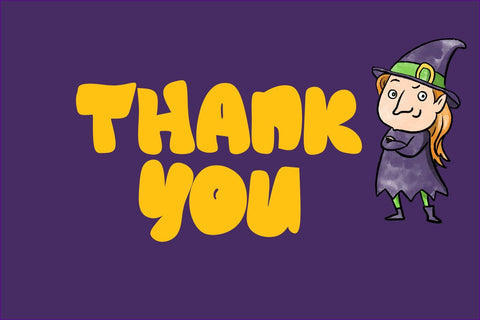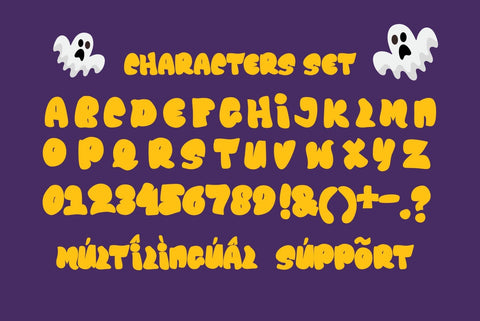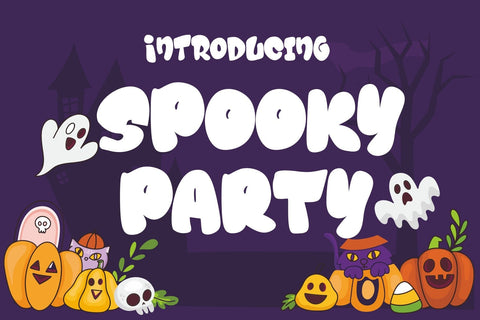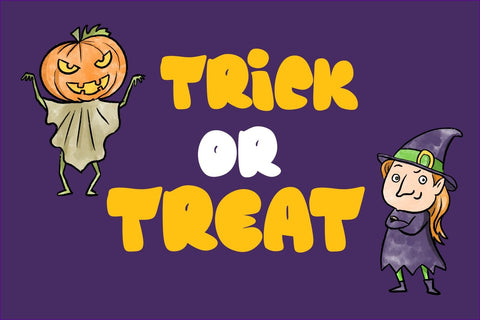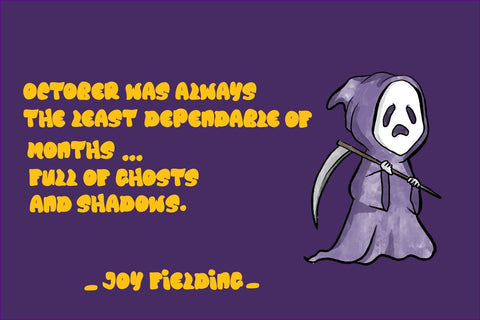
Spooky Party - Playful Halloween Font
Spooky Party is the ultimate font to cast a spell of fun and fright on your Halloween projects. With its playful and eerie design, this typeface is perfect for creating spooky invitations, haunting posters, and chilling social media posts. Each letter is infused with a ghoulish charm that's sure to make your Halloween-themed designs stand out. Get ready to send shivers down spines with Spooky Party, the perfect choice for adding a touch of whimsy to your spooky celebrations!